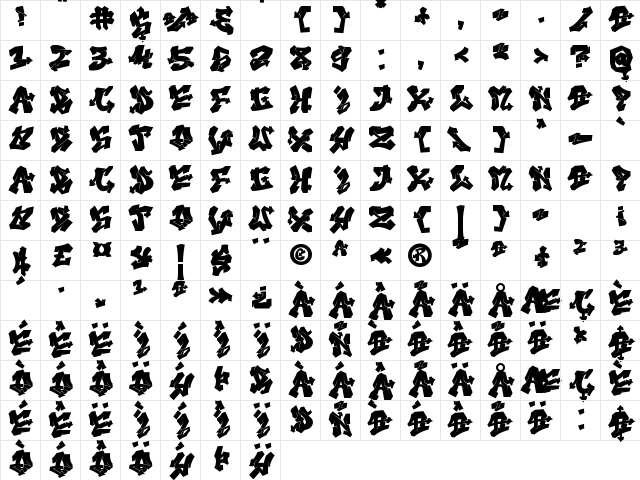
Complete Nightclaw Vandal Reg Solid Regular glyph index. Displaying only characters natively supported by Nightclaw Vandal Reg Solid Regular font.
Nightclaw Vandal Reg Solid is a composed and adaptable typeface that performs quietly and consistently across a wide range of design contexts.